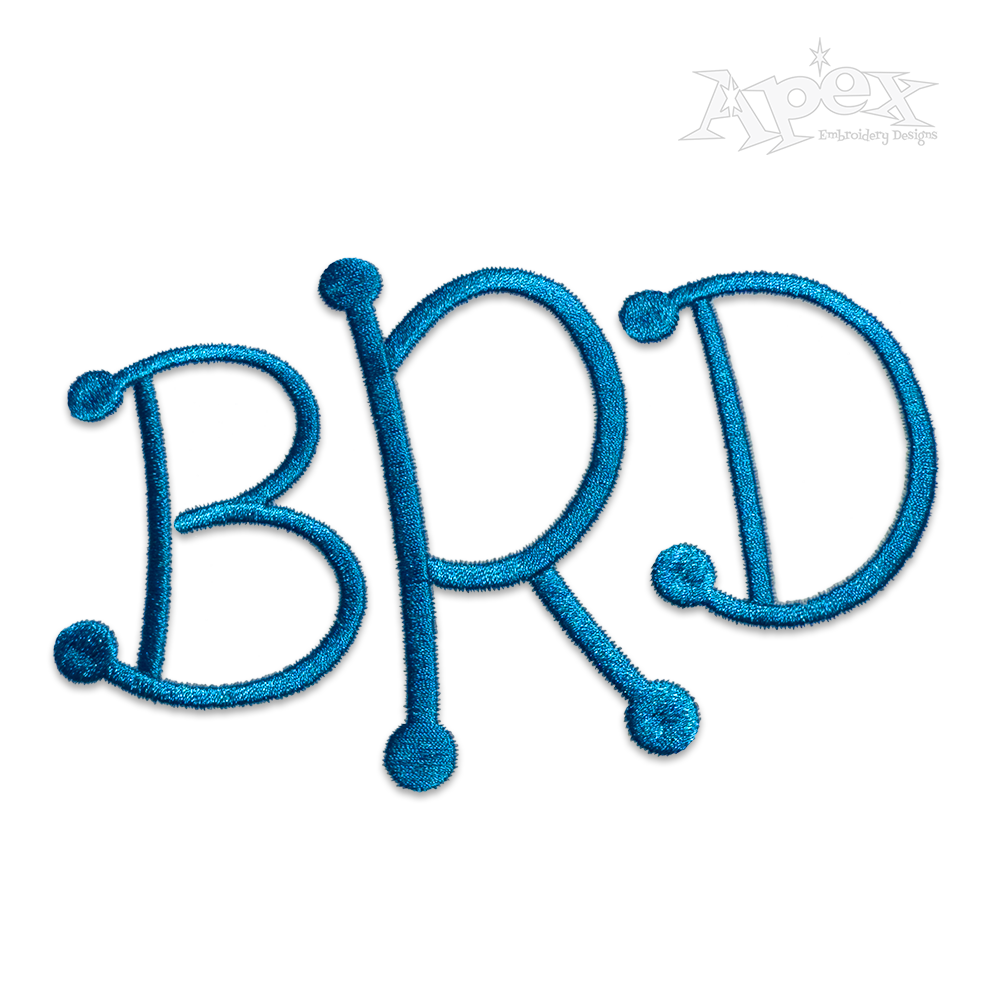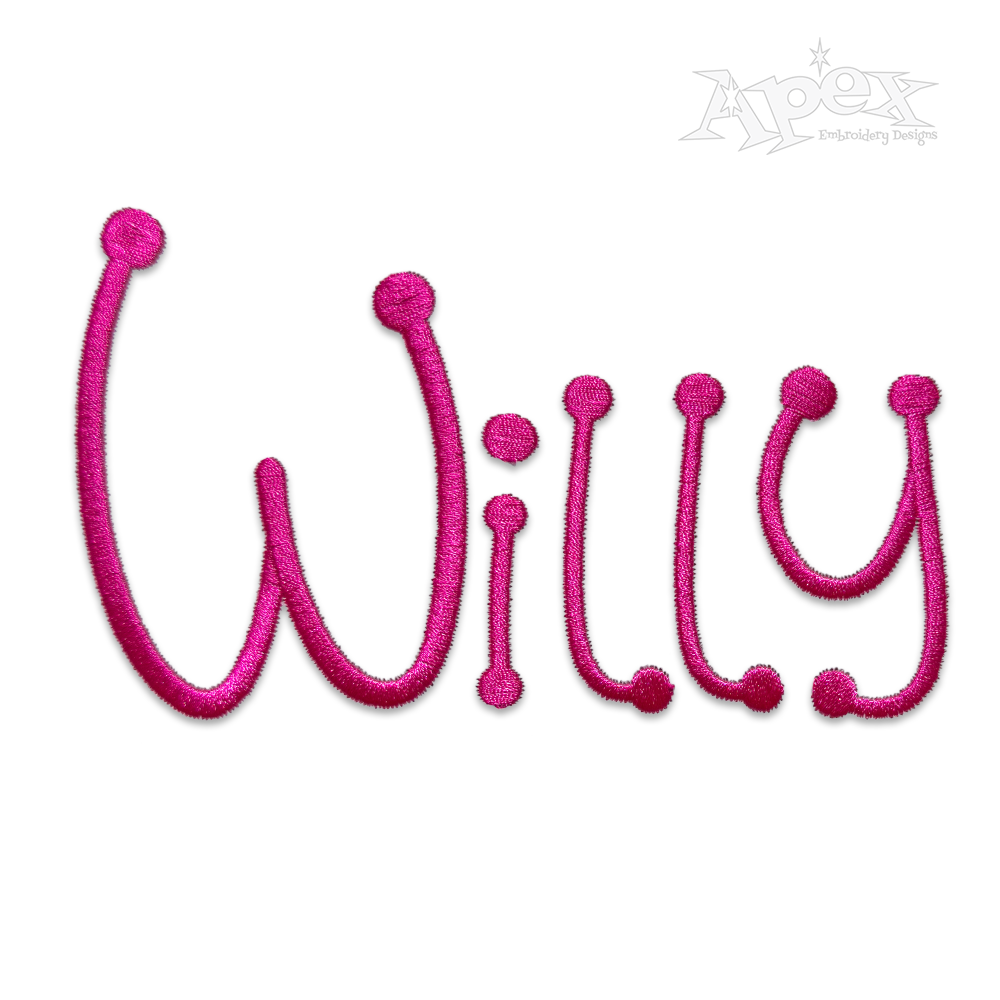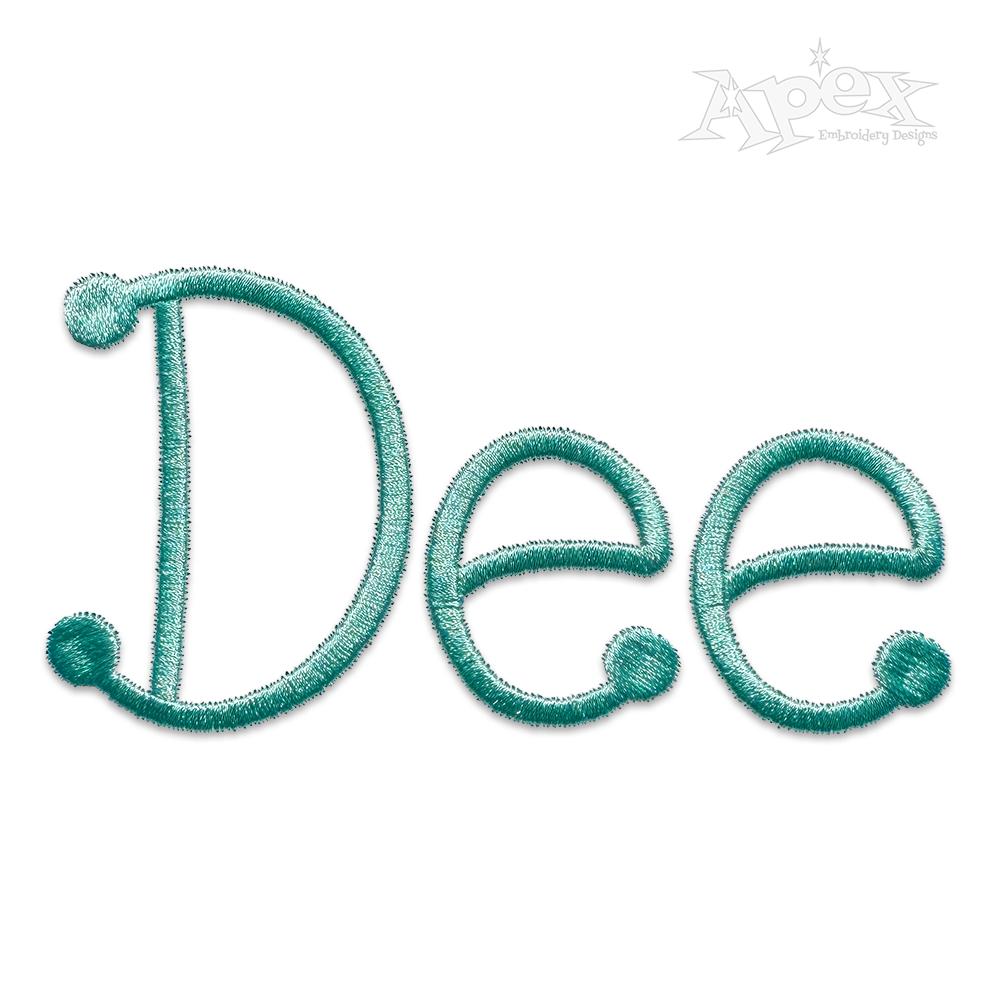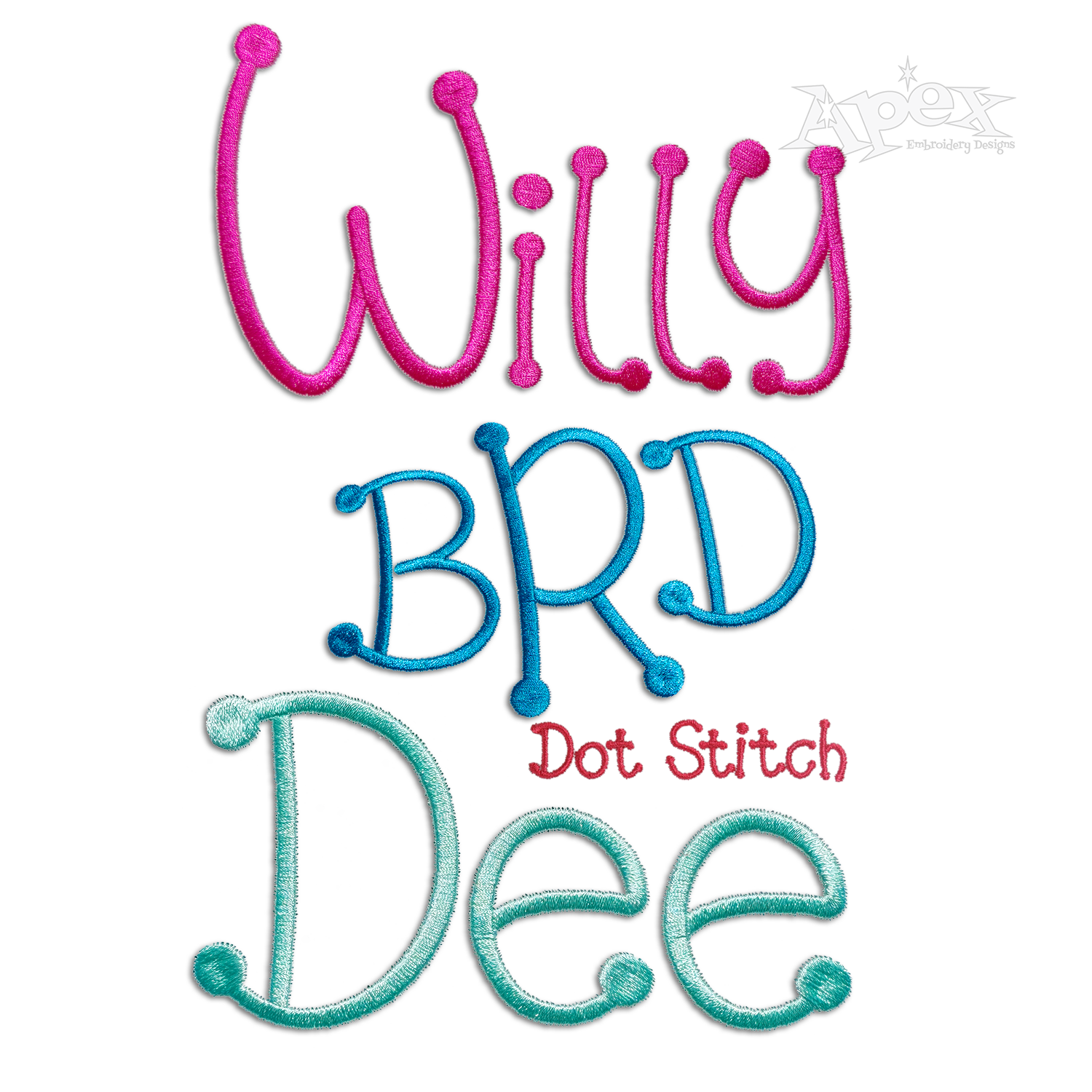
Dot Stitch Embroidery Font
Create polka dot style personalized gifts and home décor with bespoke Polka Dot Font. Classic circle round with stylish polka dots embroidery monogram set is perfect for customizing hats, linens, towels, baby gifts, tote bags, and more.
This Polka Dot embroidery font collection includes complete size sets with uppercase monogram letters designed for creating stunning text monograms. Each font comes professionally digitized for smooth stitching and excellent embroidery results. Apex has digitized machine embroidery fonts for over 25 years.
- Polka Dot Monogram Font